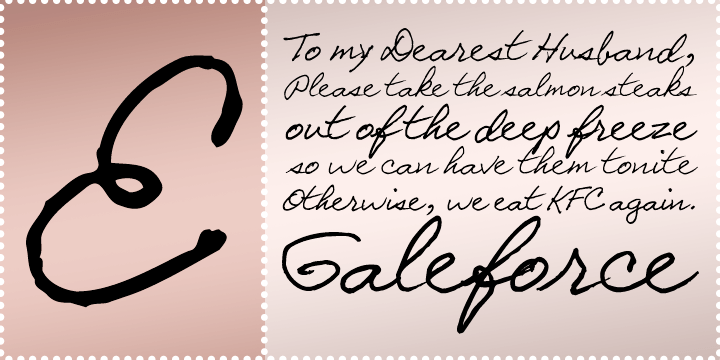
Galeforce BTN
Font Family by Breaking The Norm
Galeforce BTN is a bold handwritten display font with a forceful, fast-moving personality. Its energetic marker-like strokes give it the feel of a message written in haste, full of urgency, confidence, and attitude. Galeforce BTN works especially well for posters, edgy branding, album-style graphics, notes, packaging, social media graphics, and designs that need a raw, assertive handwritten voice. Its strong informal character makes it a natural choice when a layout calls for something personal, direct, and impossible to ignore.